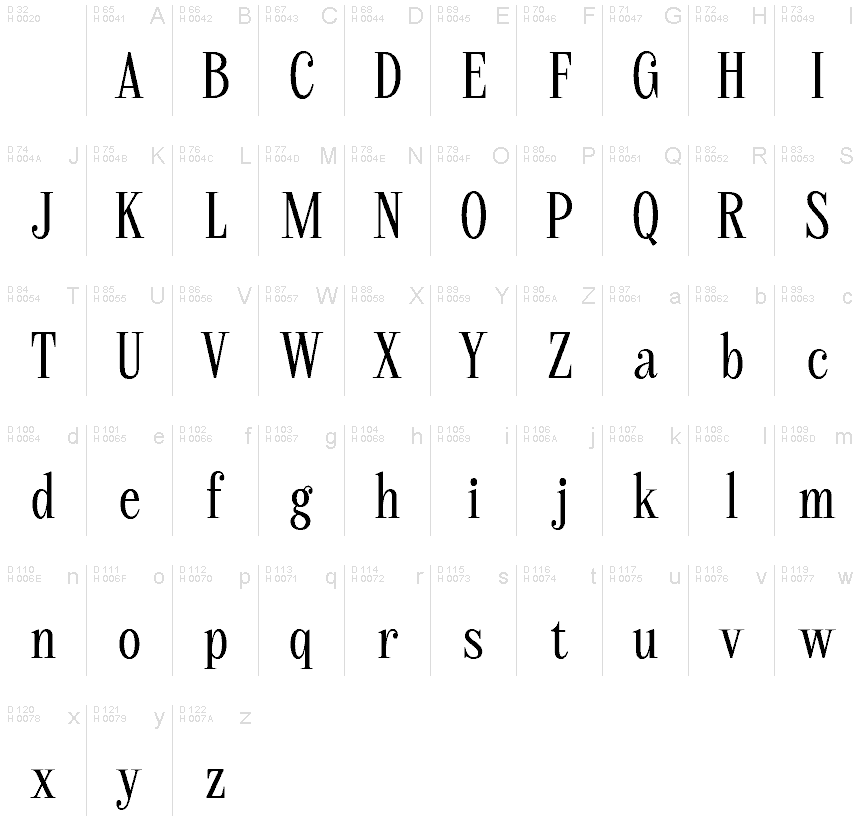
CS Meira Regular Demo
CS Meira font by Craft Supply Co. is a sophisticated serif font that masterfully combines elegance, tradition, and style. This condensed, light font presents a refined appearance with its delicate strokes and high-contrast design. Its readable aesthetic captures users’ attention without being overly dominant, ensuring the visibility of the supporting illustrations or images.
Use this free serif font in wedding designs like invitations and wishing cards. It’s suitable for businesses from any industry when used in business cards and branding designs or those within the surface of print publications like newspapers or magazines. Get creative with digital project ideas such as social media banners and stories using Meira font.